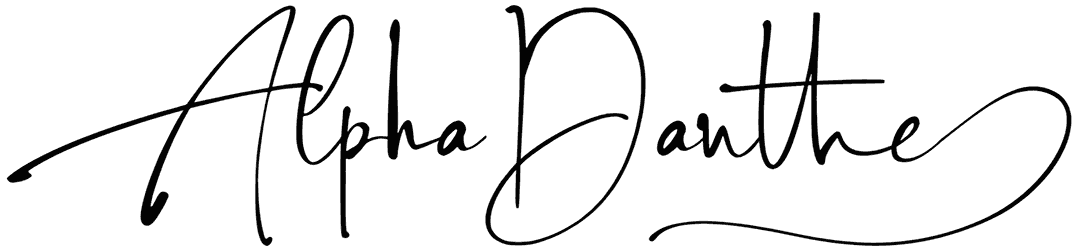
Alpha Danthe Font
Alpha Danthe is as clear and expressive as it can be, describing exquisite lines and emphasizing advanced identities. Whether it’s a complex logotype you need or very modern digital content to grab attention, you’ll thank your lucky stars for coming across this script font.
With both styles of this handwritten font, you can invite any viewer to a friendly atmosphere that will devote some time to reading your content, even in the absence of numbers and a small amount of illegibility.